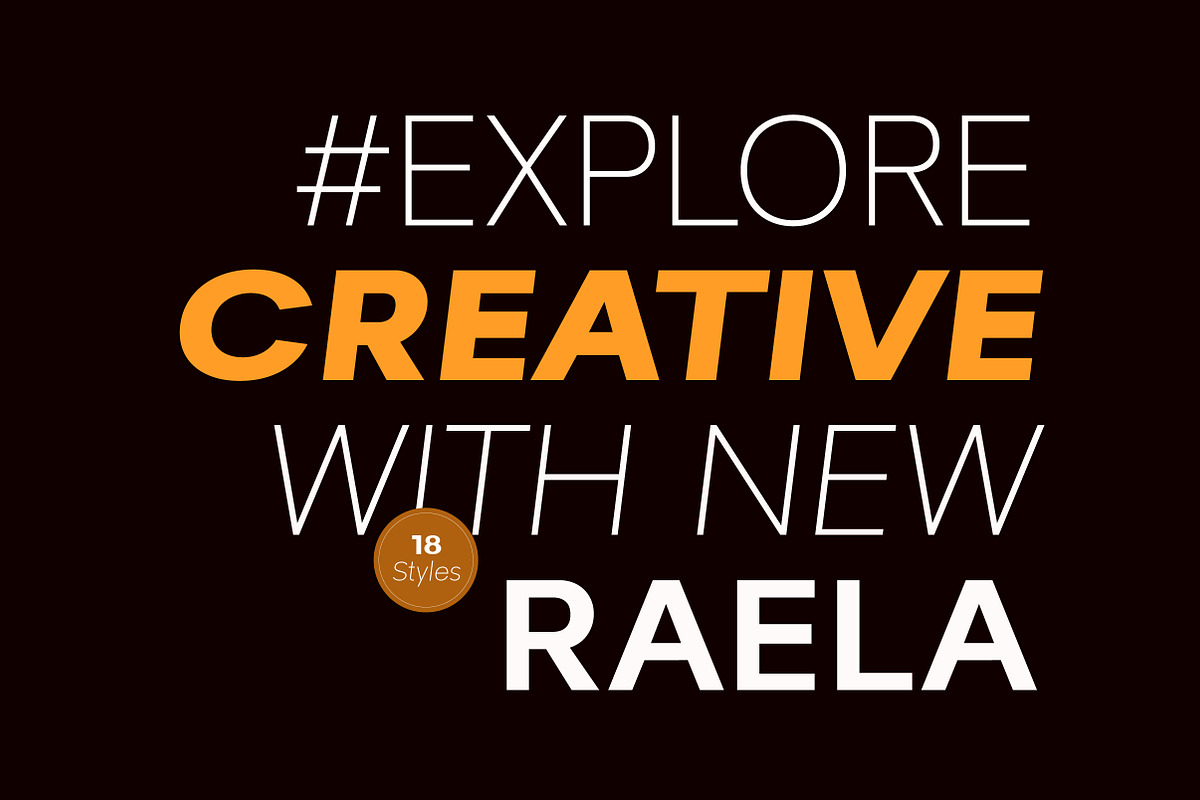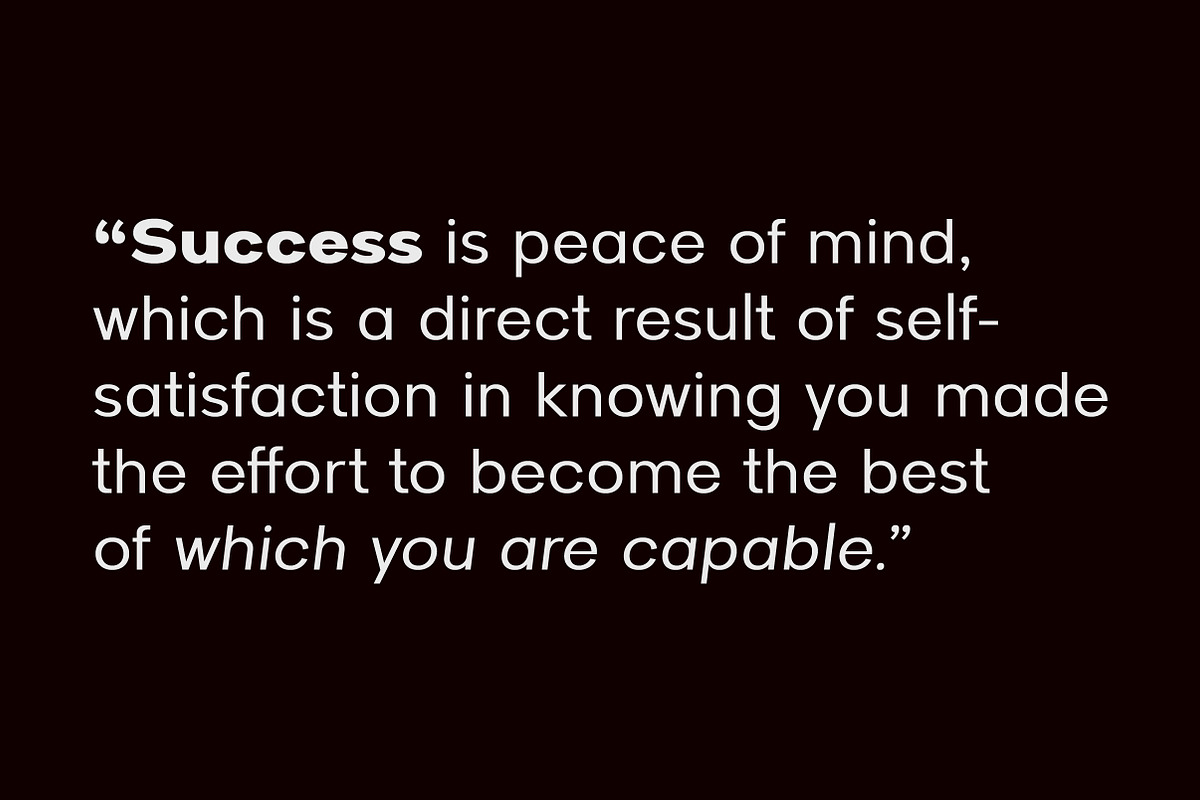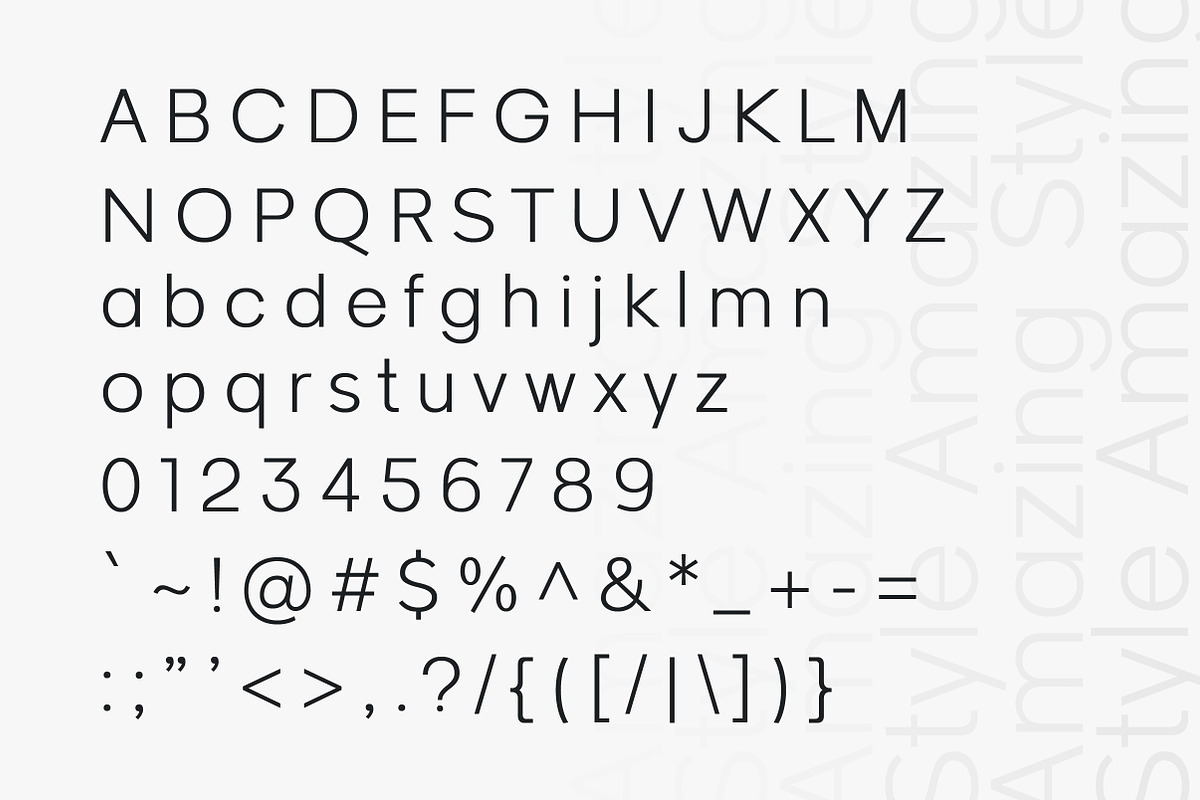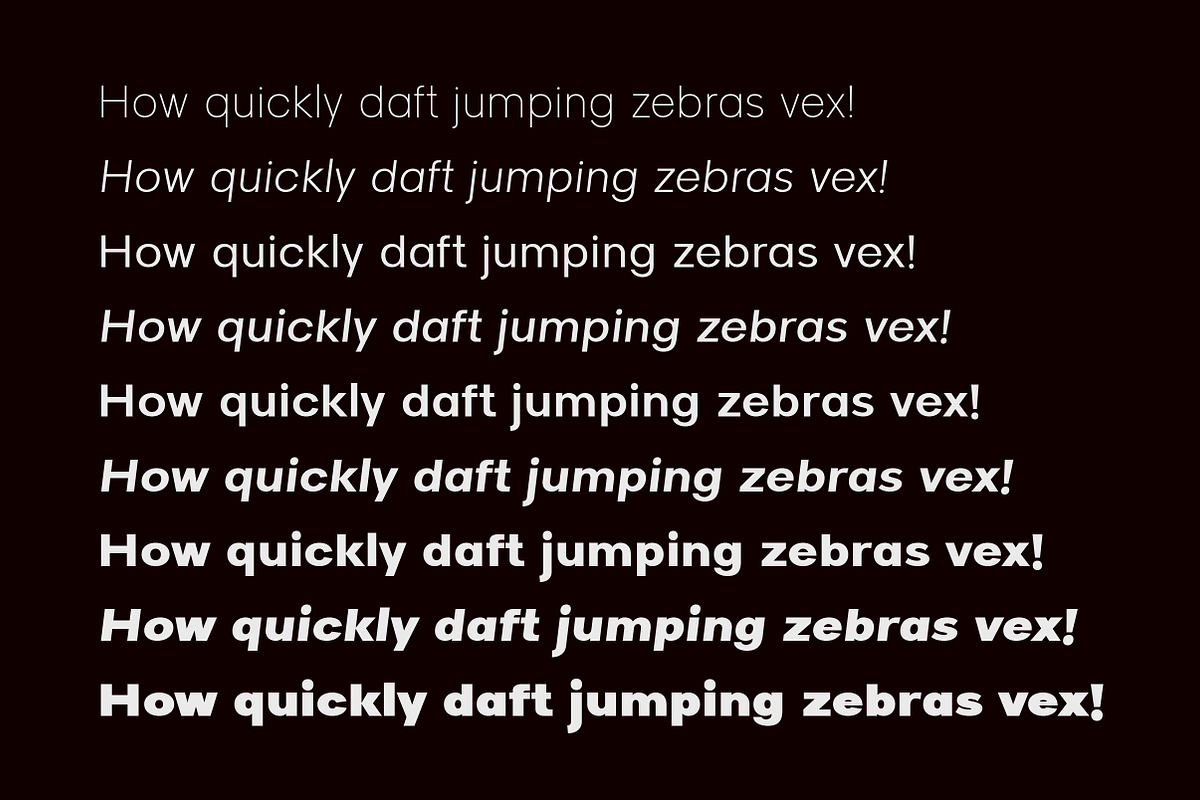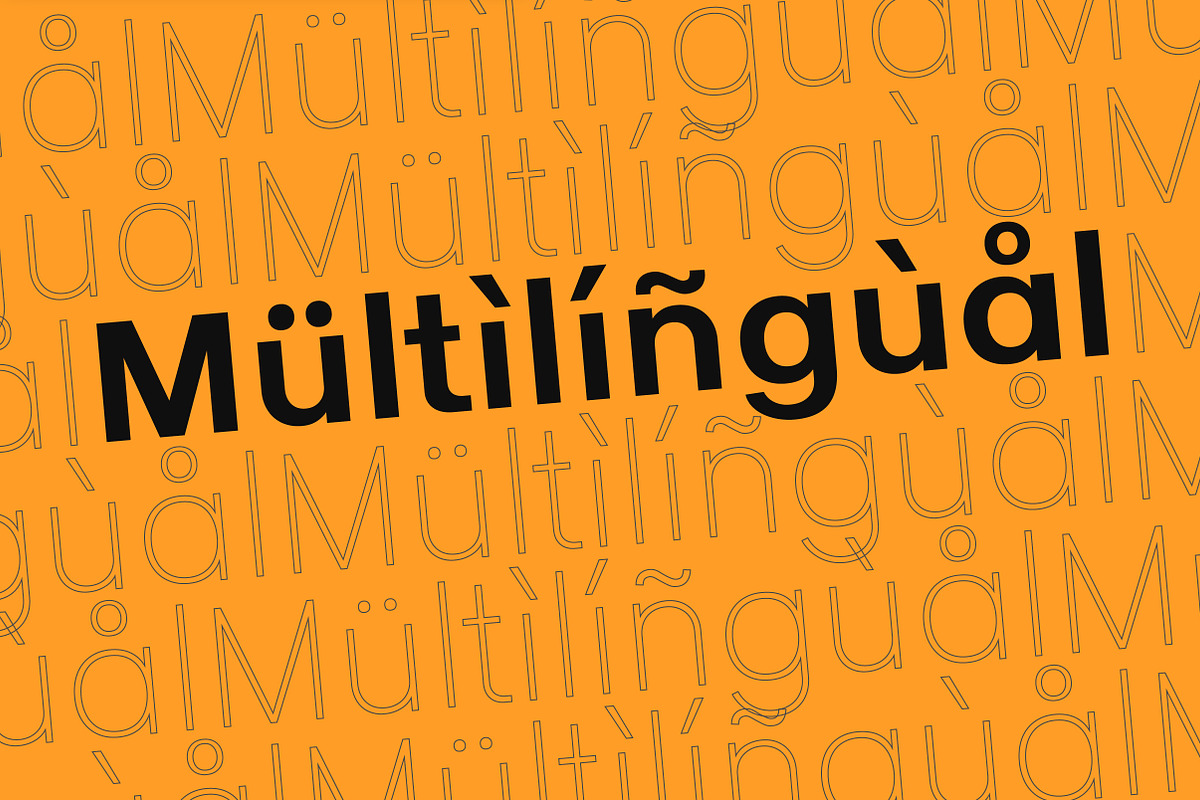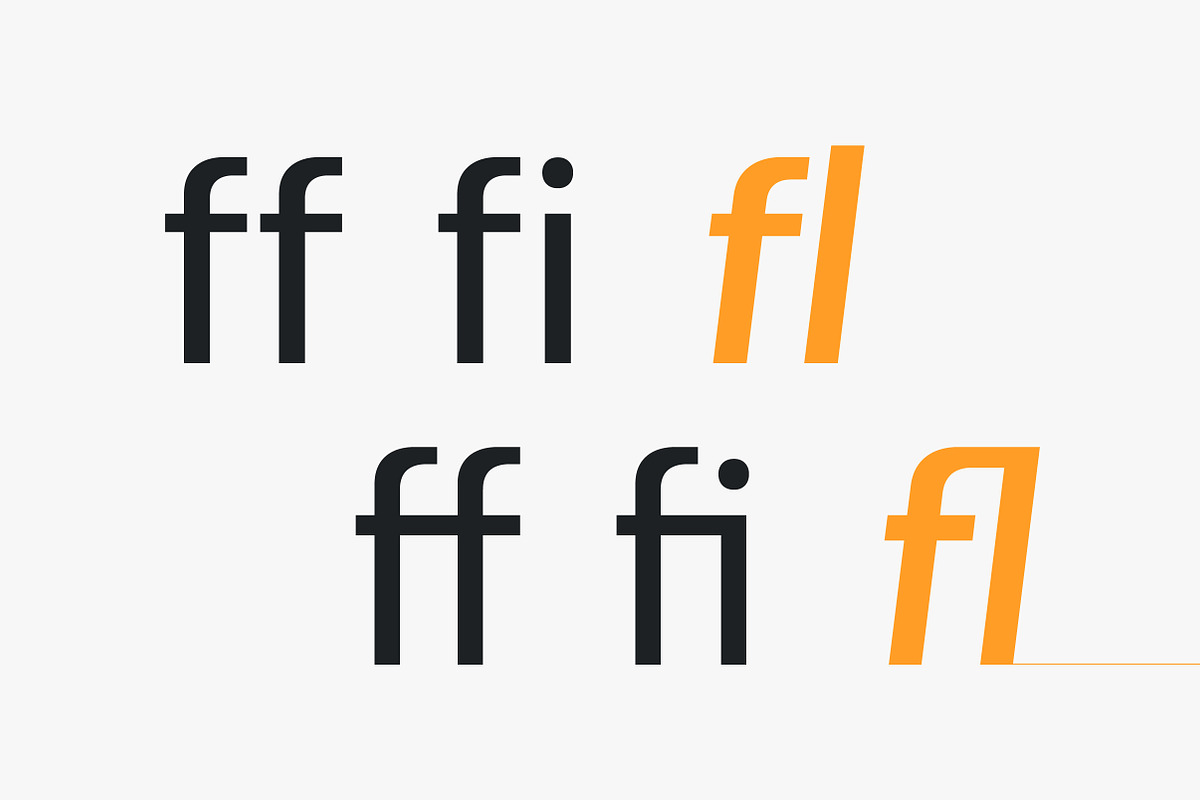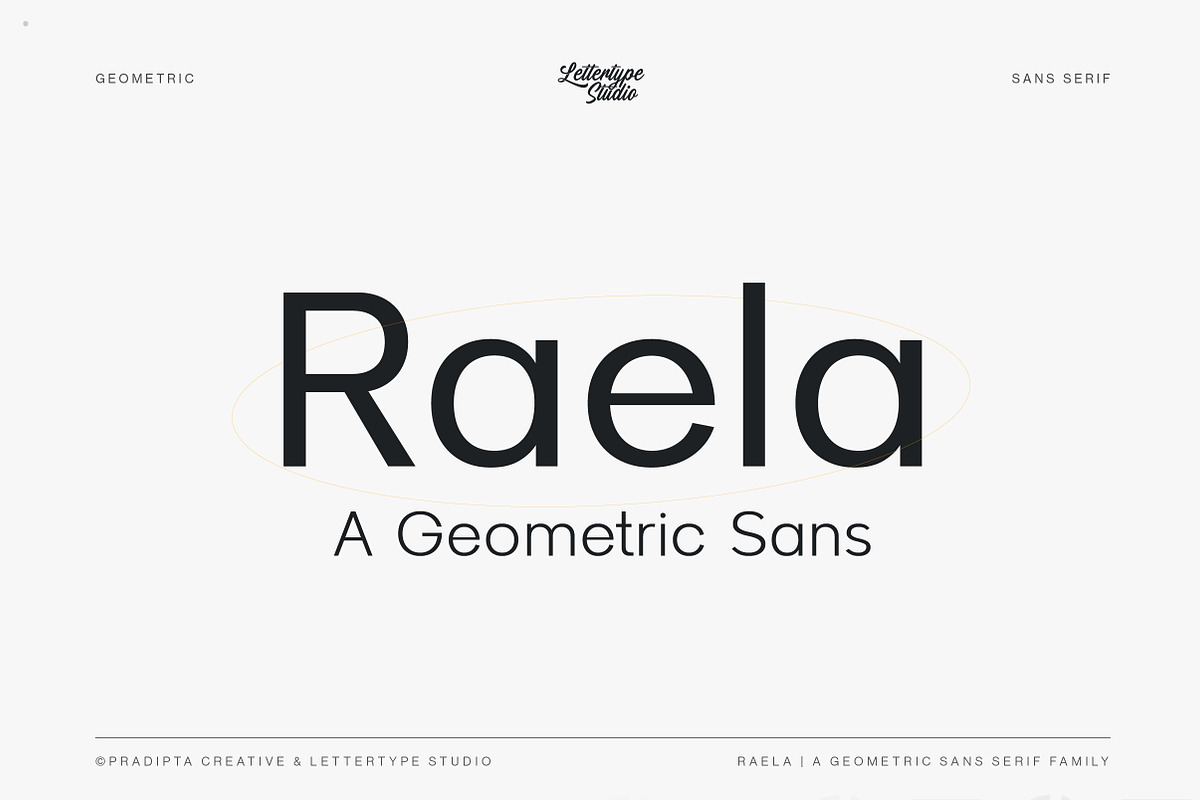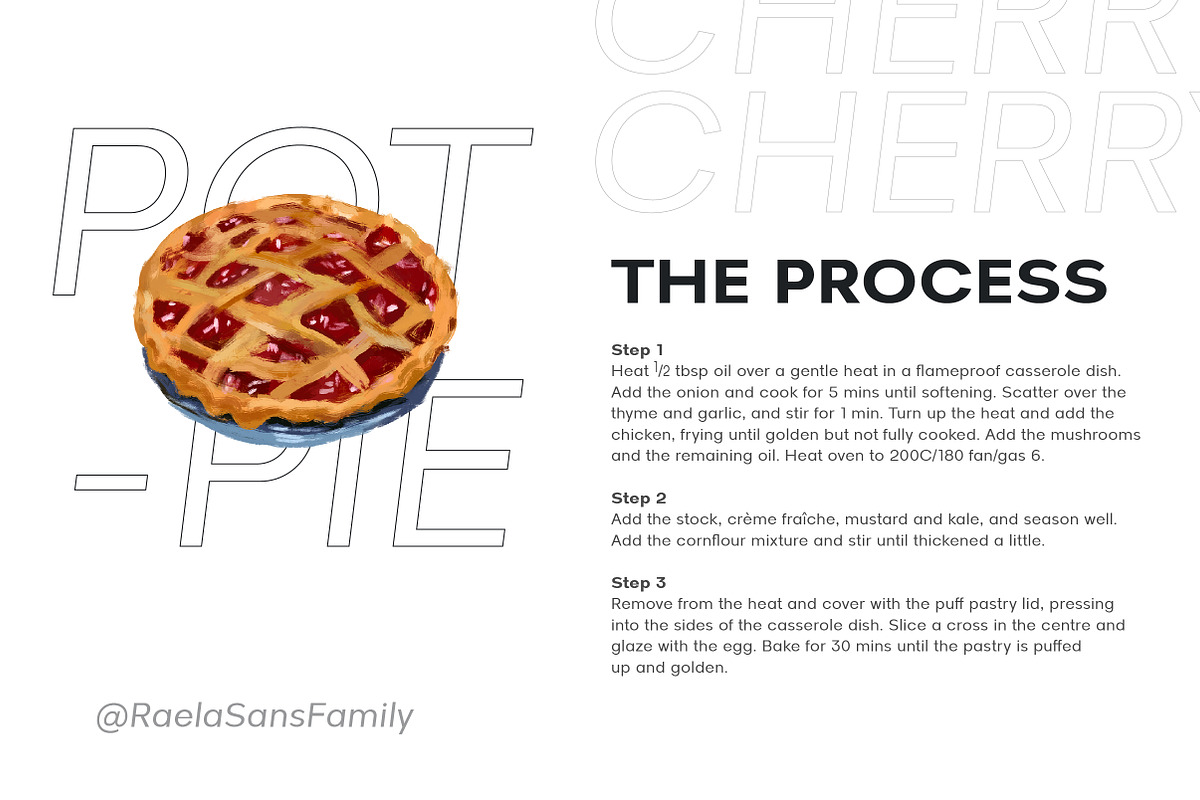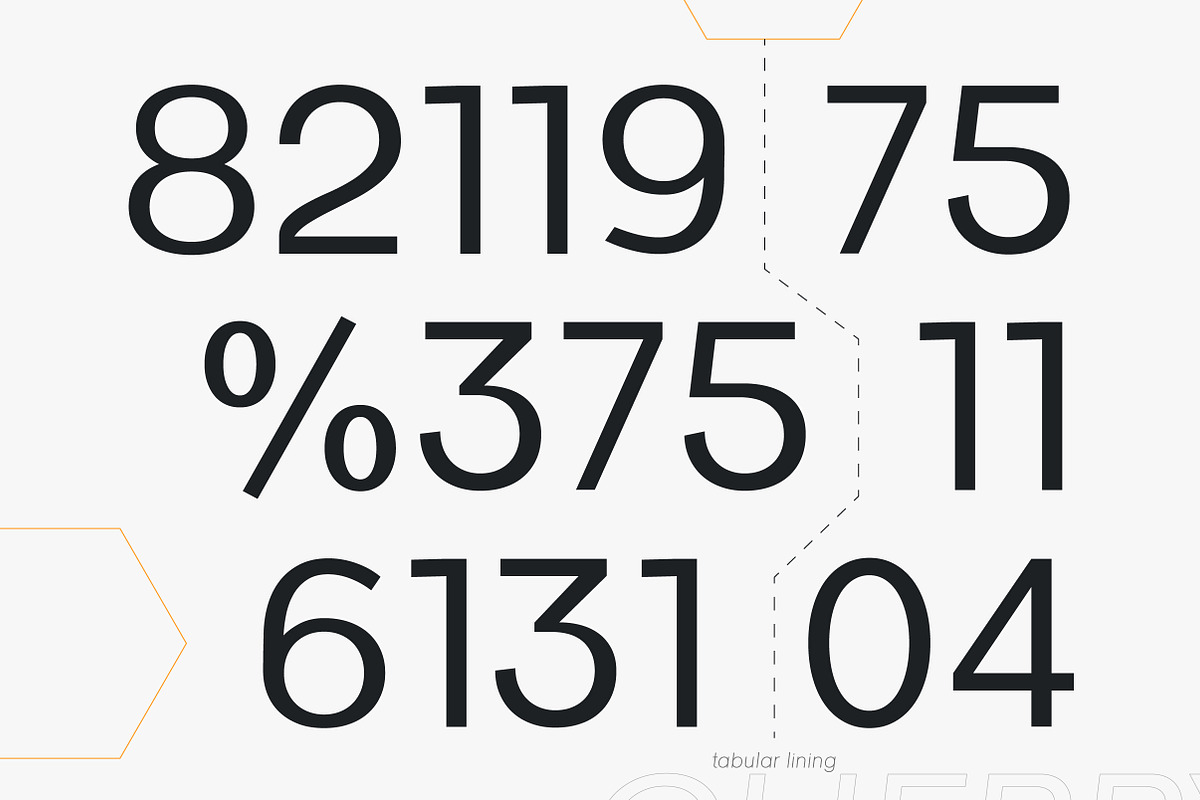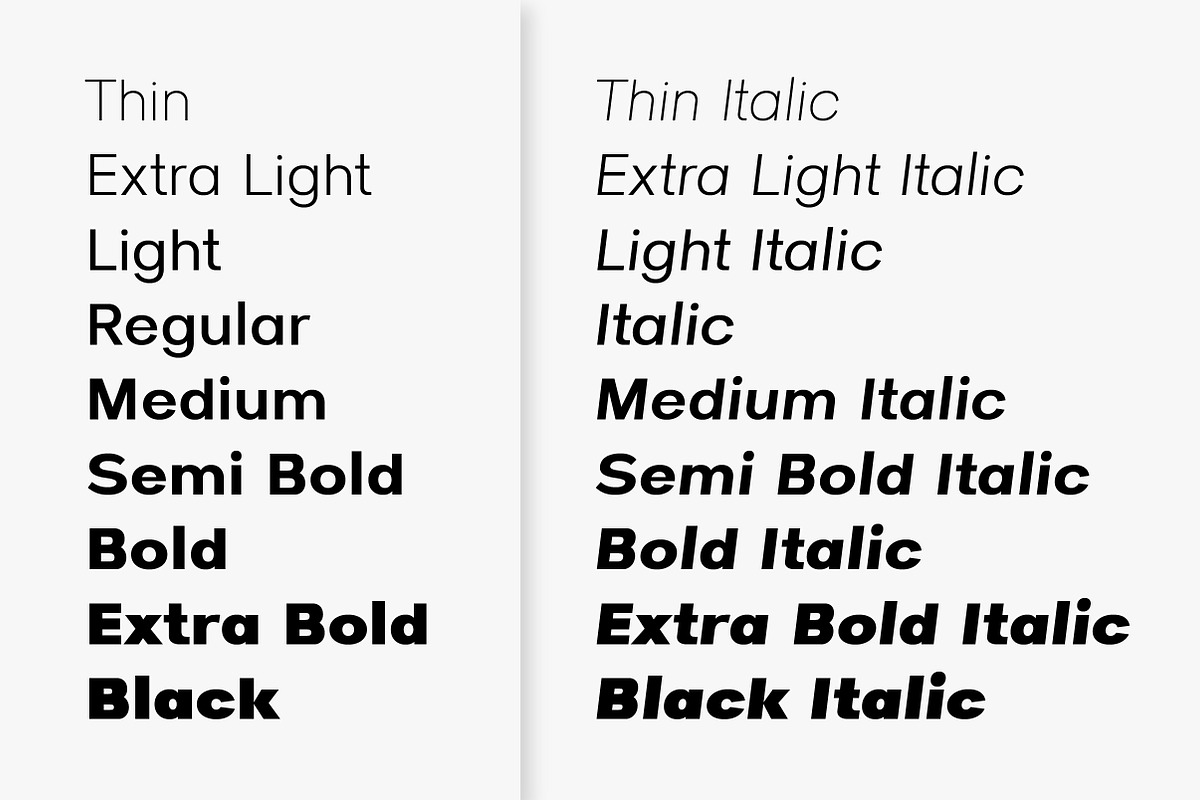
Raela – Modern Geometric Sans
Raela is a meticulously crafted geometric sans serif typeface that delivers regularity and simplicity while exuding a bold and strong personality. Designed for readability and versatility, its proportional width, flat apex, closed aperture, and straight-cut stroke ends enhance its contemporary appeal.
Raela includes 18 weights, ranging from Thin to Heavy. OpenType features include Stylistic Alternates, figure variations (fractions, tabular lining, numerator, denominator), and broad Latin language support.
Raela Features:
- 18 font styles
- Upright & oblique
- 386 glyphs
- 260+ languages support
- Corporate branding, logo design & business identity systems
- Editorial layouts, digital interfaces & marketing presentations
- Clean web design, UI dashboards & startup branding
- Product packaging, posters, and advertising visuals
- Modern minimalist projects with geometric precision